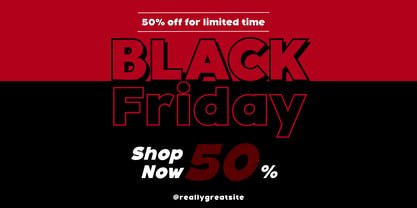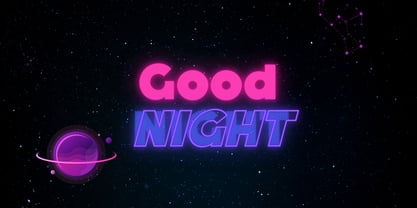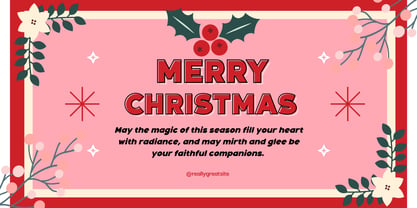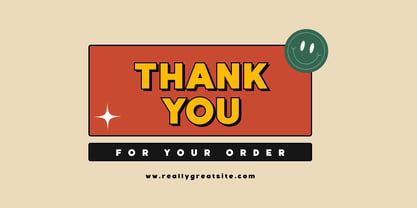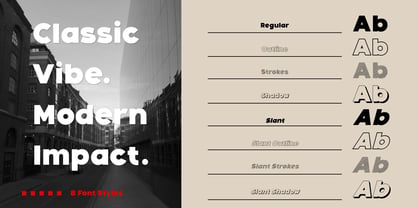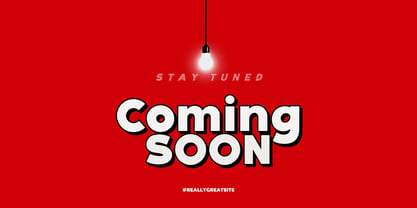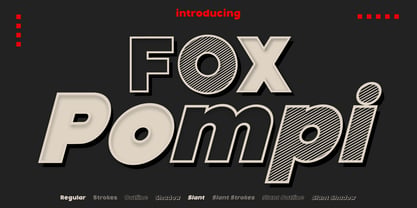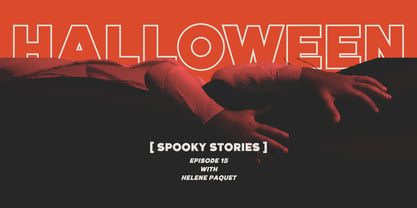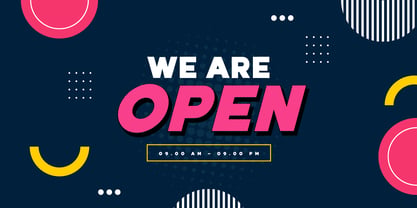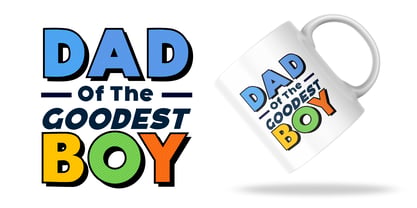
Fox Pompi
by Fox7
The Fox Pompi Font Family was designed by Rattana Rattanawan and published by Fox7. Fox Pompi contains 8 styles and family package options. More about this family
🦊 Fox Pompi – Bold Retro Display Font Family Bring back the classic charm with a modern twist! Fox Pompi is a bold display font family designed to make your message stand out. With its playful yet strong letterforms, it blends vintage vibes and modern style—perfect for headlines, posters, logos, and eye-catching branding projects. This font comes with 8 unique styles to give you complete creative flexibility: Regular Outline Strokes Shadow Slant Slant Outline Slant Strokes Slant Shadow Whether you want a clean retro headline or a fun, dimensional look, Fox Pompi has you covered. Its versatility makes it ideal for branding, packaging, editorial design, social media graphics, and more! ✨. Perfect for: Logos & branding Posters & signage Social media posts Packaging design Magazine titles Merch & apparel design
Designers: Rattana Rattanawan
Current Foundry: Fox7